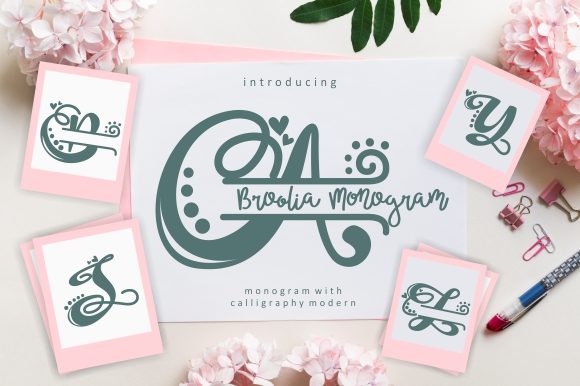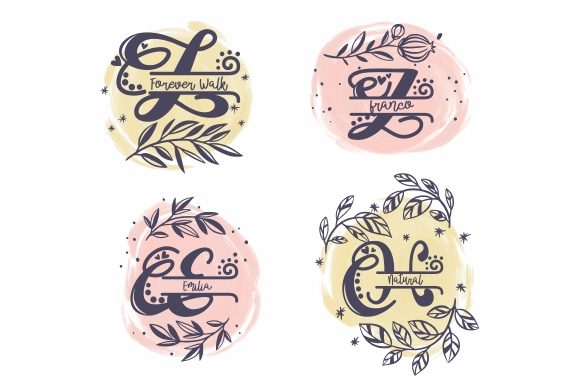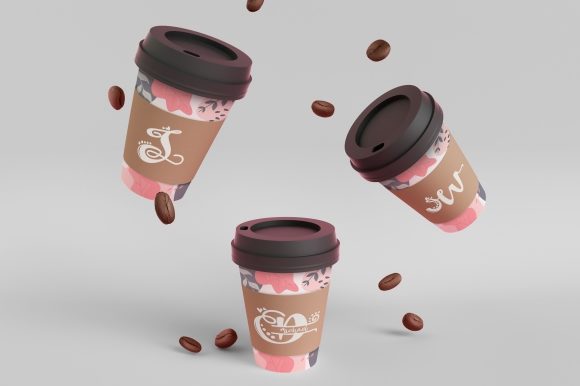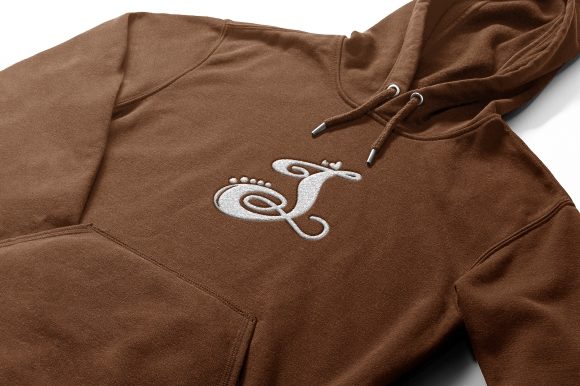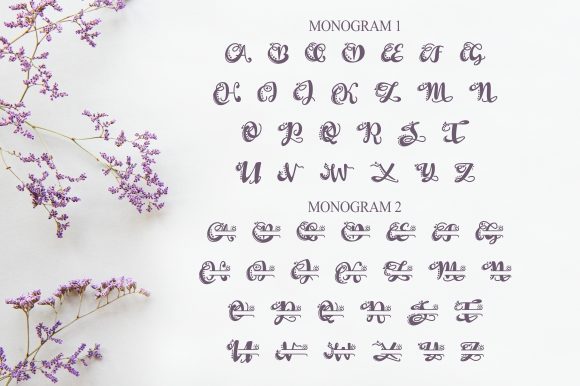
Broolia Monogram Font
About Broolia Monogram Font
Broolia Monogram is a sweet and delicate handwritten font. Fall in love with its authentic feel and use it to create gorgeous wedding invitations, beautiful stationary art, eye-catching social media posts, and cute greeting cards.